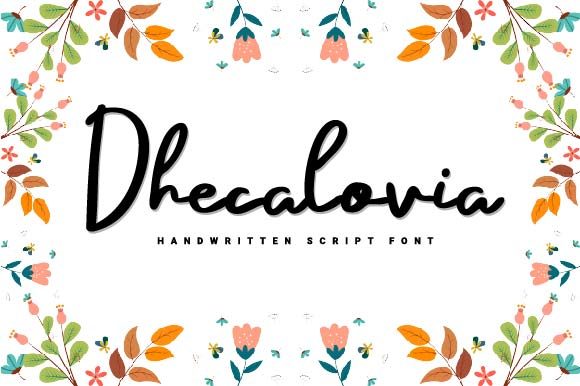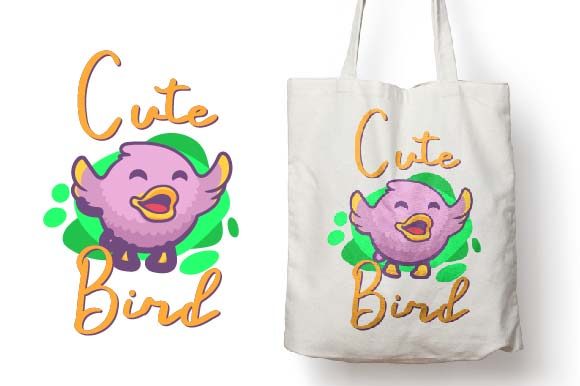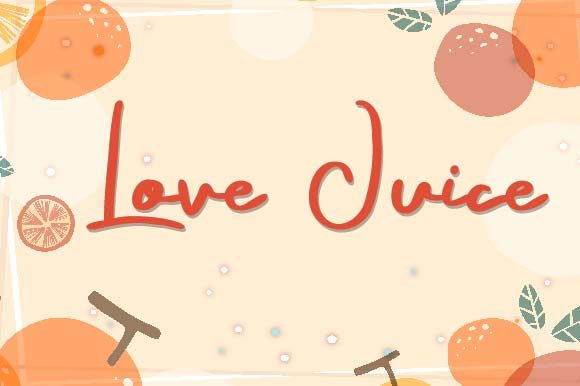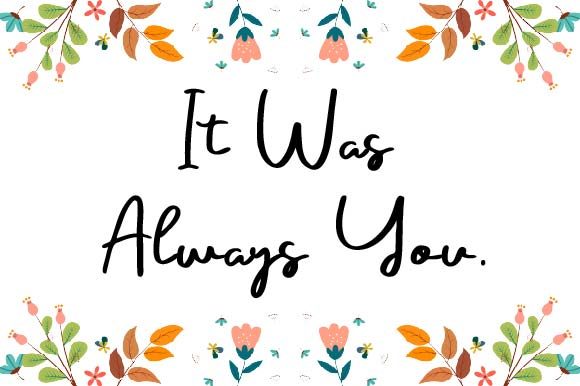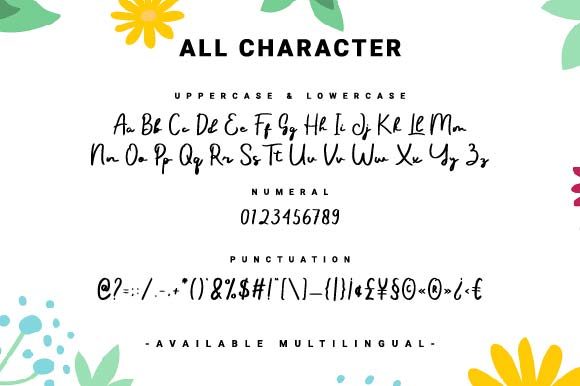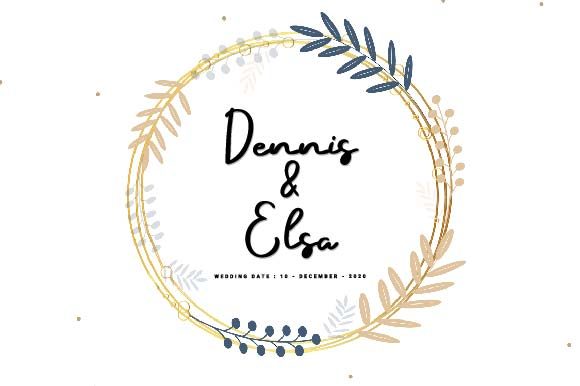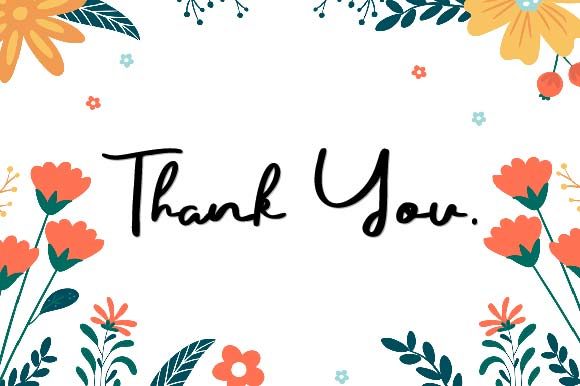
Dhecalovia Font
About Dhecalovia Font
Dhecalovia is a sweet and natural handwritten font. Casual and versatile, this font will be the ideal fit for each of your creative ideas.